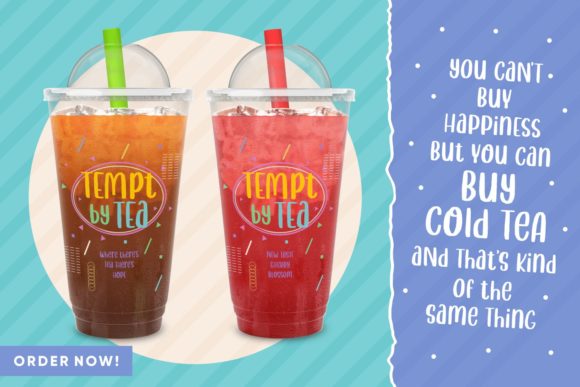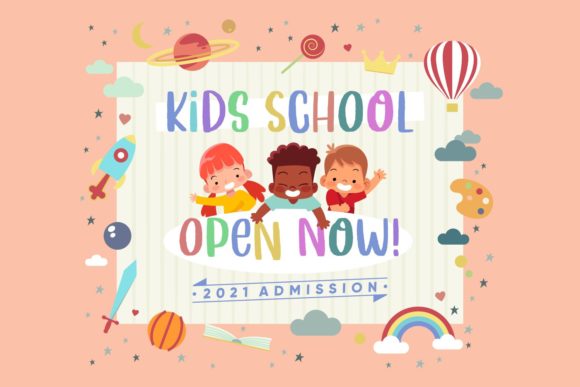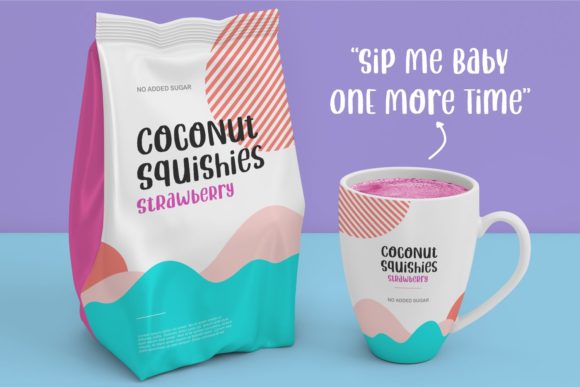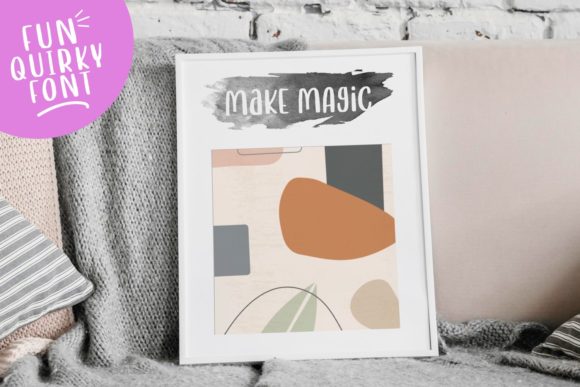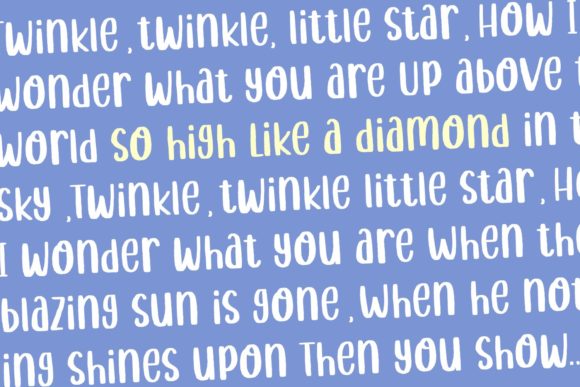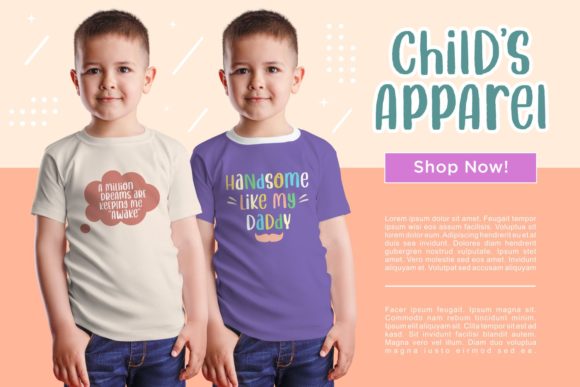
Introduction to Antiokhia Font
Antiokhia is a fun and quirky display font.
Whether you are using it for cartoon-related designs, childrenโs games, quotes, titles, brand names, book covers, posters, or just any creation that requires a touch of beauty, this font is a great choice .